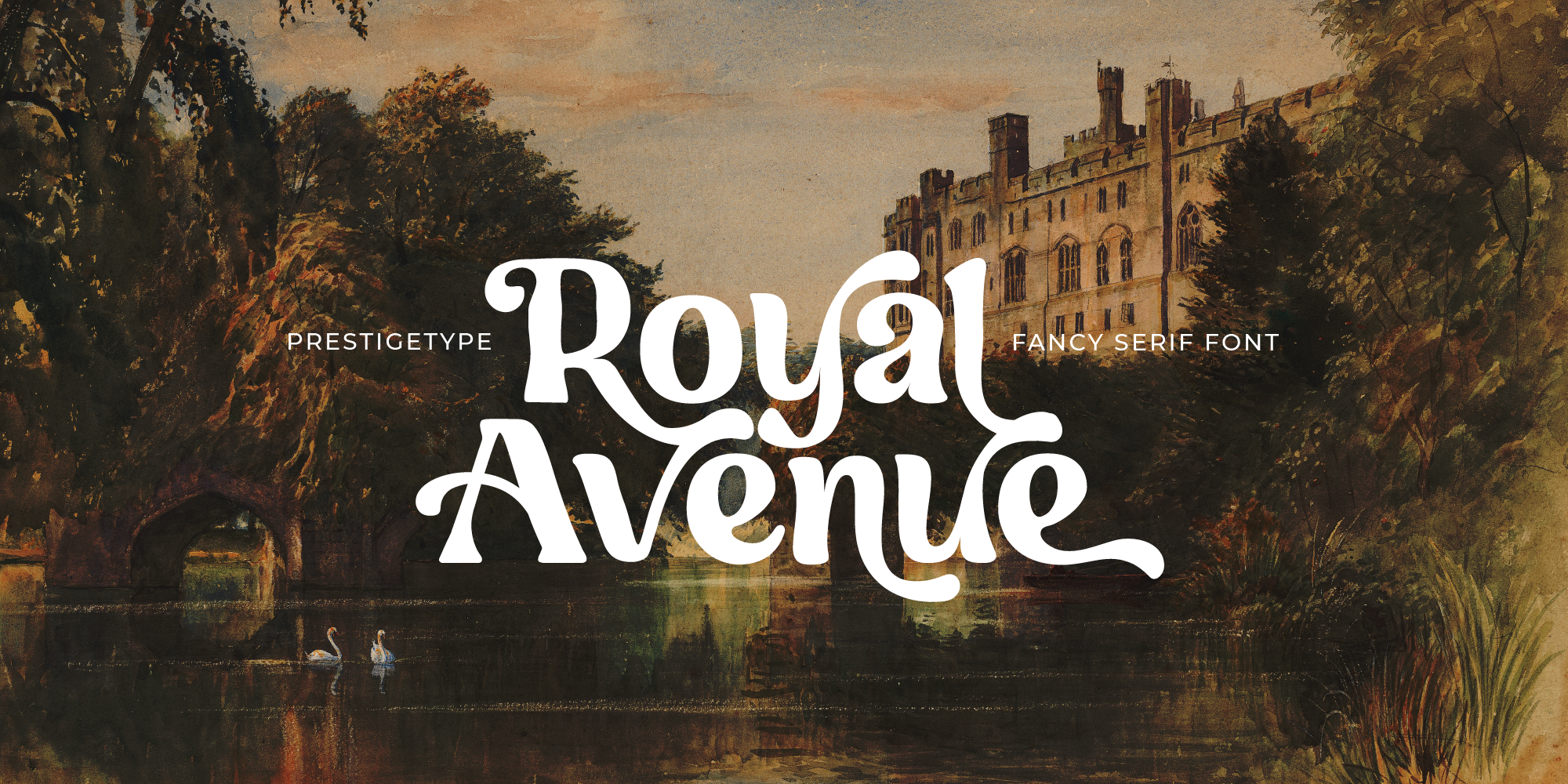
The Royal Avenue Font Free Download is a sophisticated, elegant serif typeface perfect for luxury branding, upscale invitations, editorial headlines, high-end packaging, and prestigious logos. Its refined strokes and classic style exude a sense of grandeur and timelessness.
What makes the Royal Avenue Font so exciting is its ability to instantly elevate any design with regal charm and polished professionalism. This font brings a majestic and confident presence to your projects.
The Royal Avenue Font family includes Regular, Italic, and Bold weights, giving designers versatility to create balanced and impactful typography.